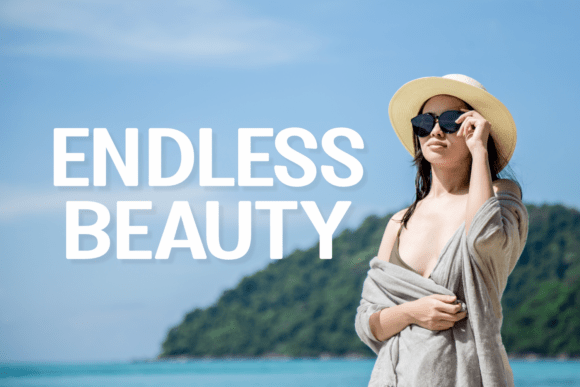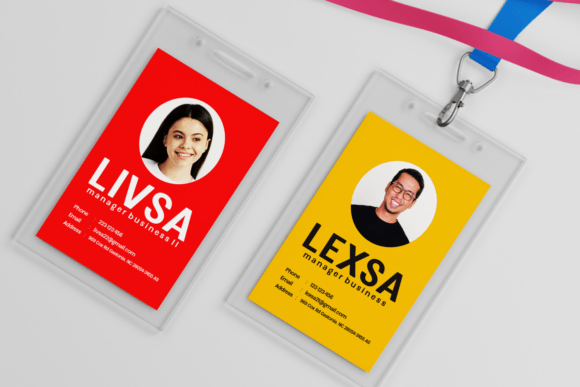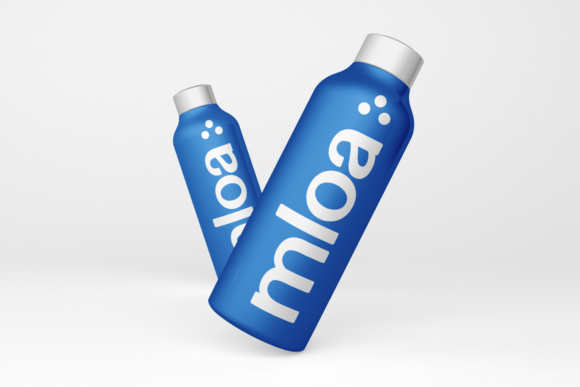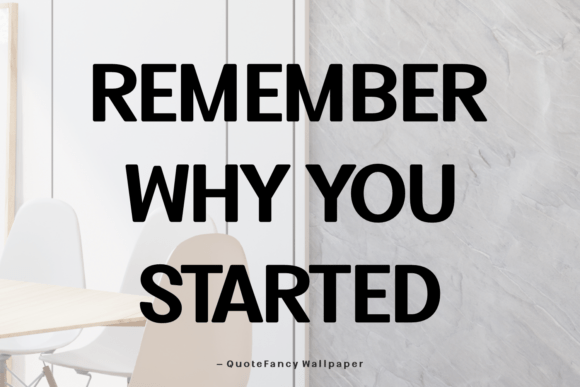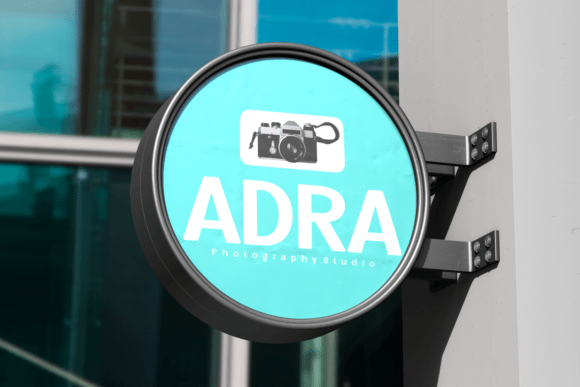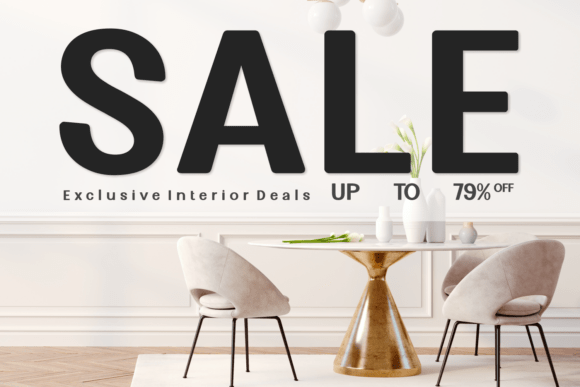
Introduction to Seyna Font Font
Fonts play a crucial role in design, and the Seyna Font font is a typeface that brings both character and versatility to any project. Whether you’re working on a branding project, a website, or a print design, the Seyna Font font offers a unique style that can elevate your work.
Introducing Seyna Font – a striking fusion of gothic and modern aesthetics that effortlessly commands attention.
Crafted with bold finesse, Seyna Font is a medium-weight typeface, ideally suited for headline creation and poster designing, perfectly epitomizing the junction where art meets functionality It effortlessly anchors any graphic design, web design project, and print font needs with an edge of captivating attractiveness that makes any brand stand out from the crowd.
Key Features of Seyna Font Font
Why Choose Seyna Font Font?
The Seyna Font font is more than just a typeface – it’s a design tool that helps you communicate your message with style and clarity. Its unique character set and versatile design make it suitable for a wide range of applications, from elegant invitations to bold headlines.
With its carefully crafted letterforms and balanced proportions, the Seyna Font font ensures readability and visual appeal across all mediums.
What makes Seyna Font font special?
The Seyna Font font stands out with its unique design, exceptional readability, and versatility across various design applications.